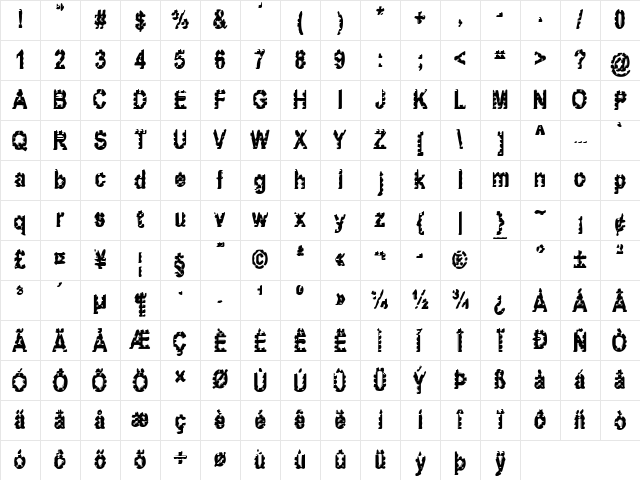
TungFont Tin Regular
Design Context for TungFont Tin
TungFont Tin is a composed and adaptable typeface that performs quietly and consistently across a wide range of design contexts.